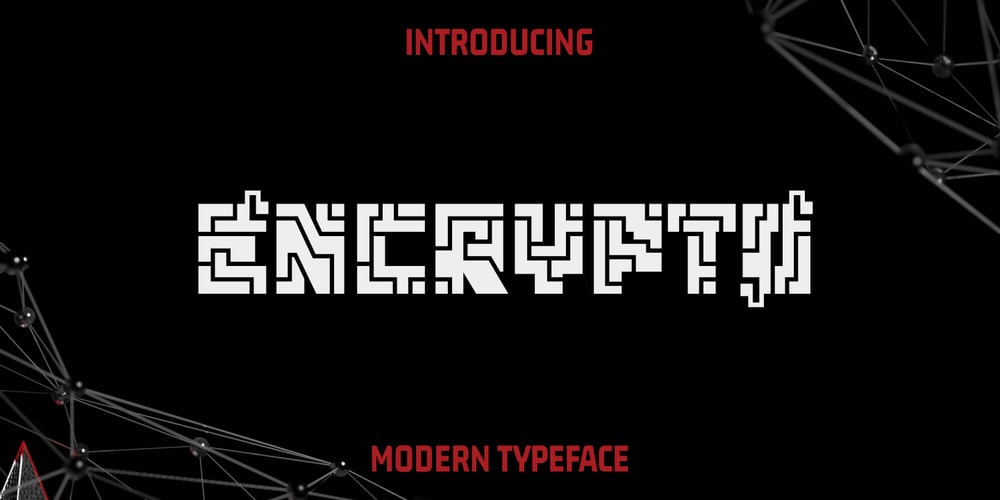
Encrypto Font Family was designed by RoninDesign and published by Ronin Design. Encrypto contains 1 styles and family package options. Encrypto is a modern typeface featuring begining and ending alternates. Designed for modern project themes, this font is perfect for game/app designs, logo designs, posters or pretty much anything else that requires a unique touch.